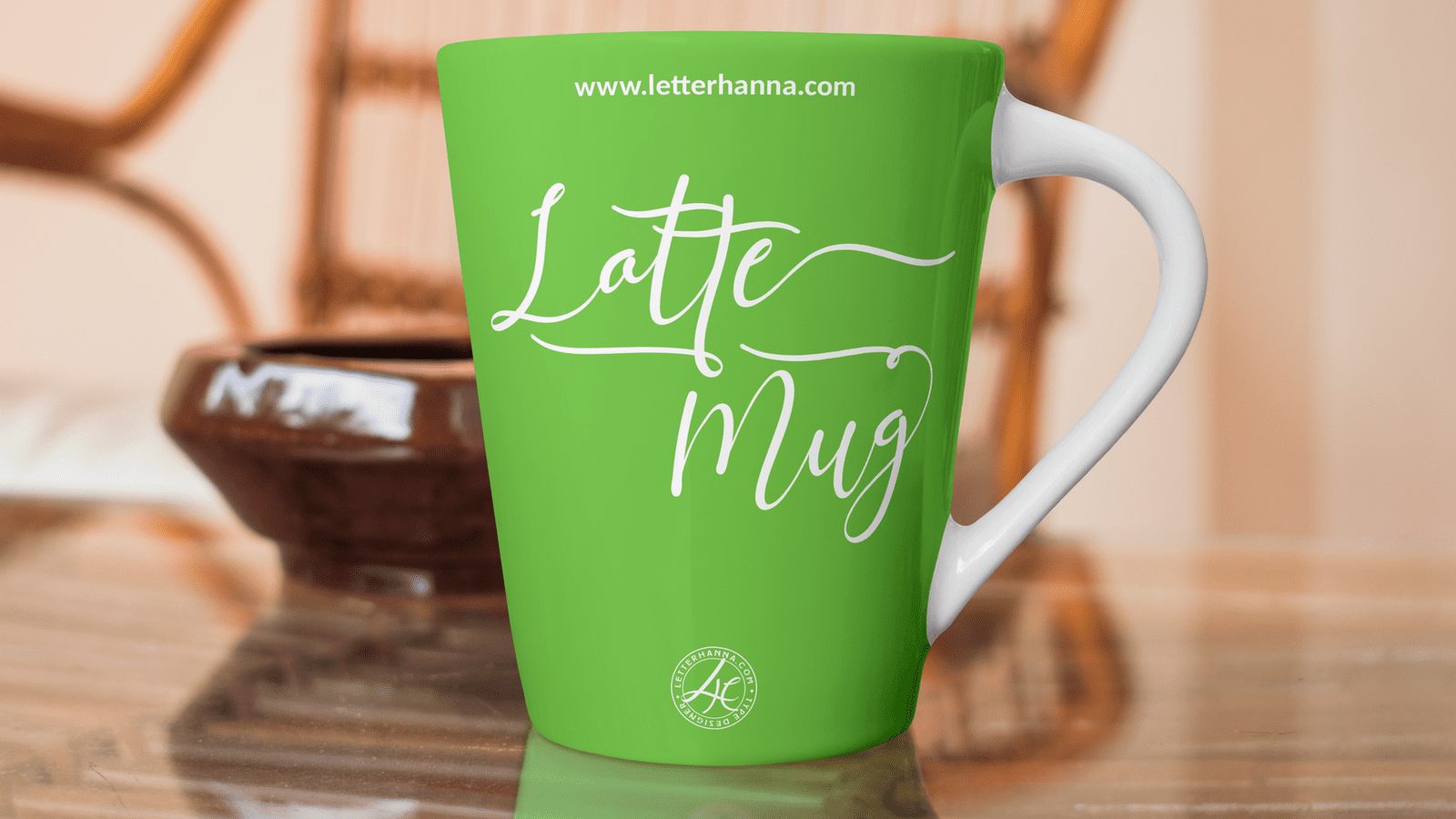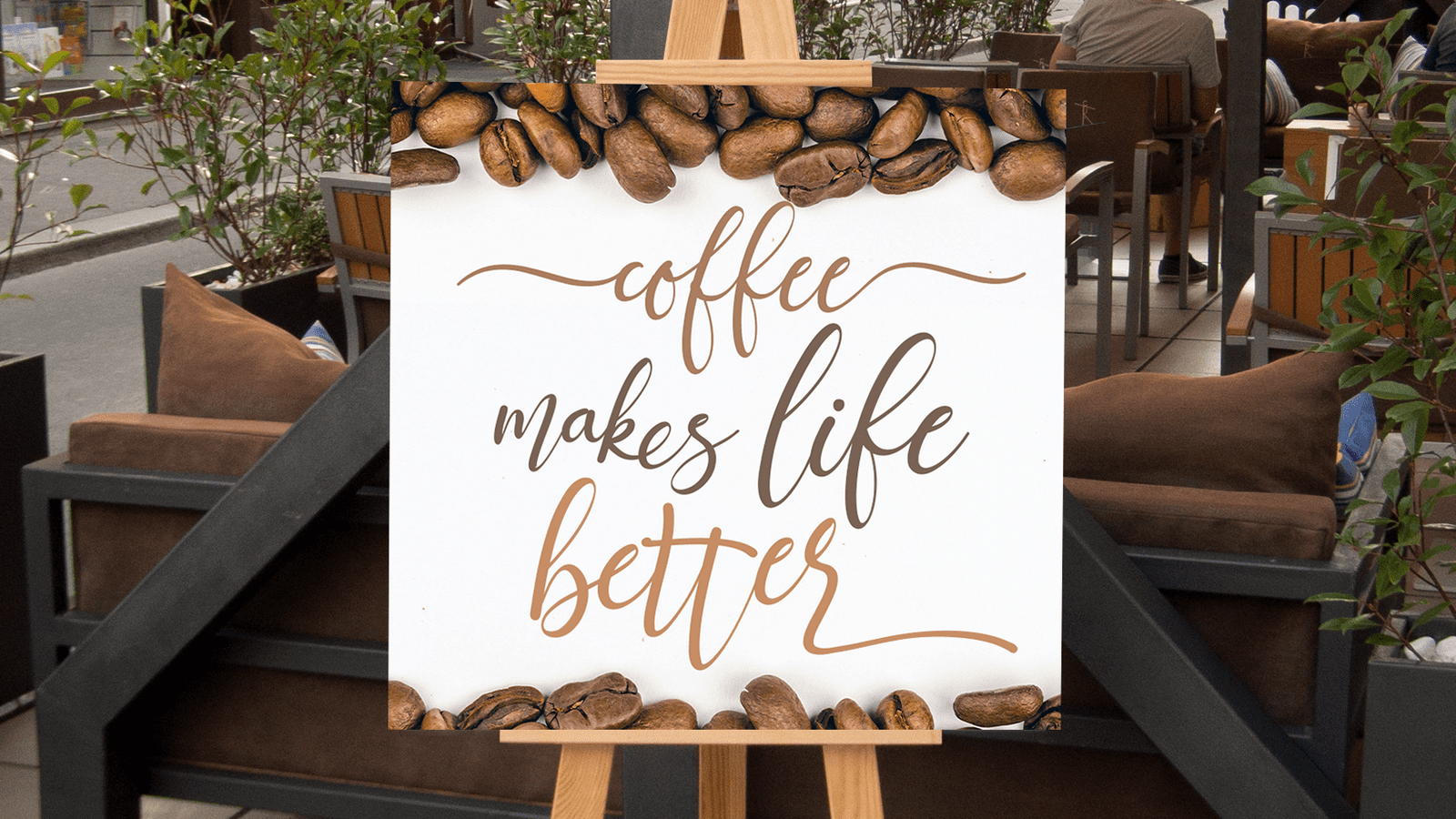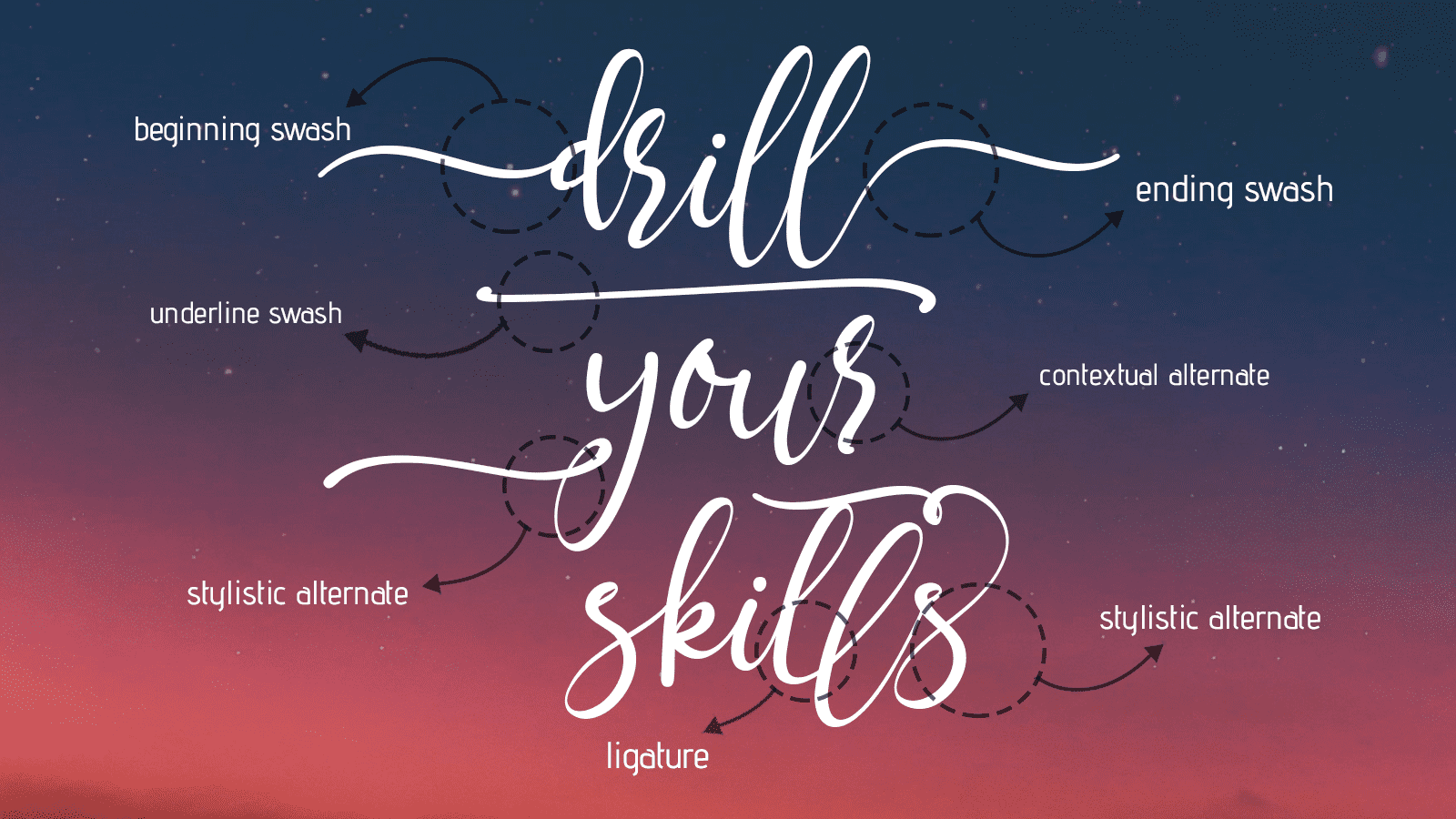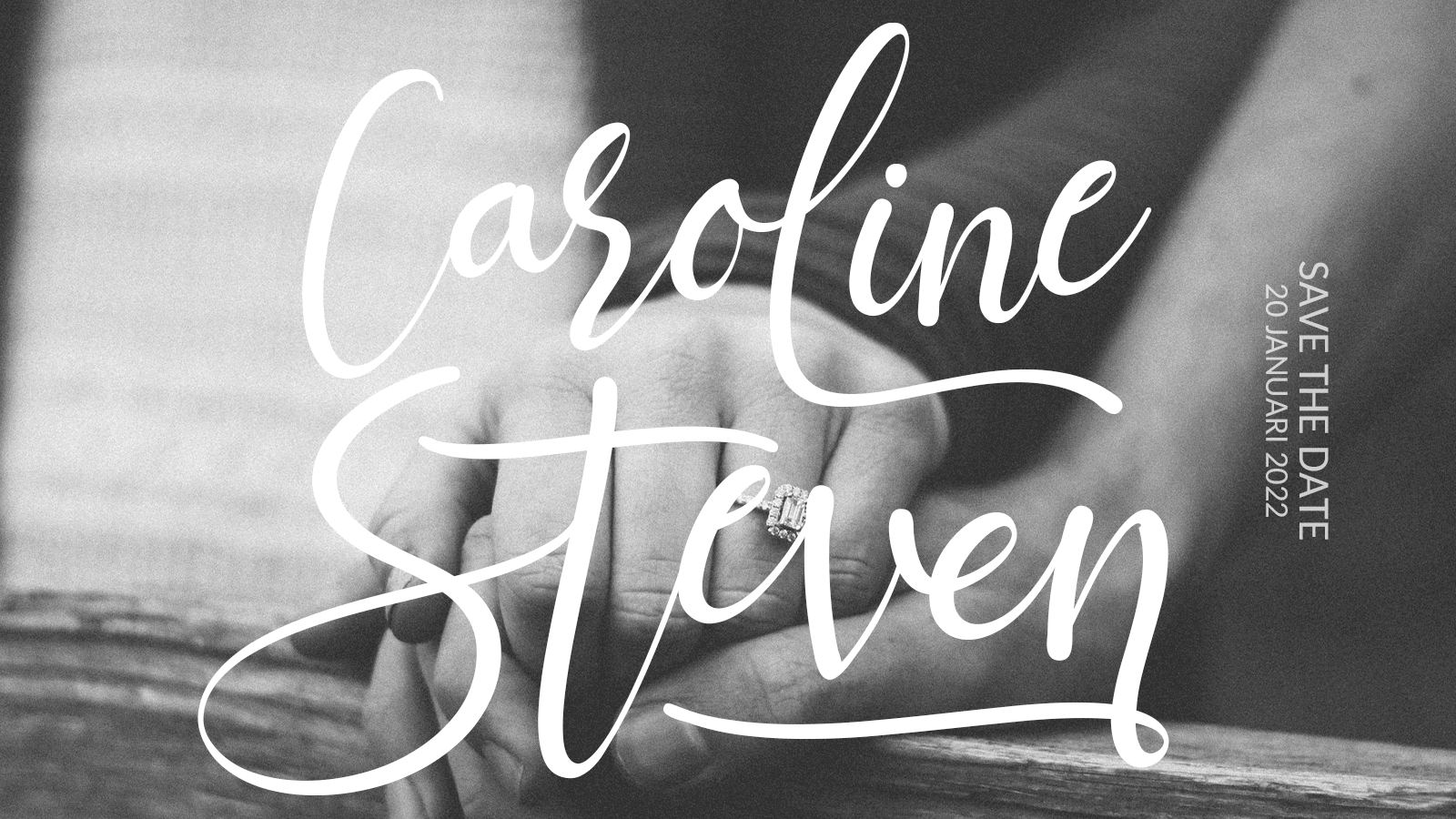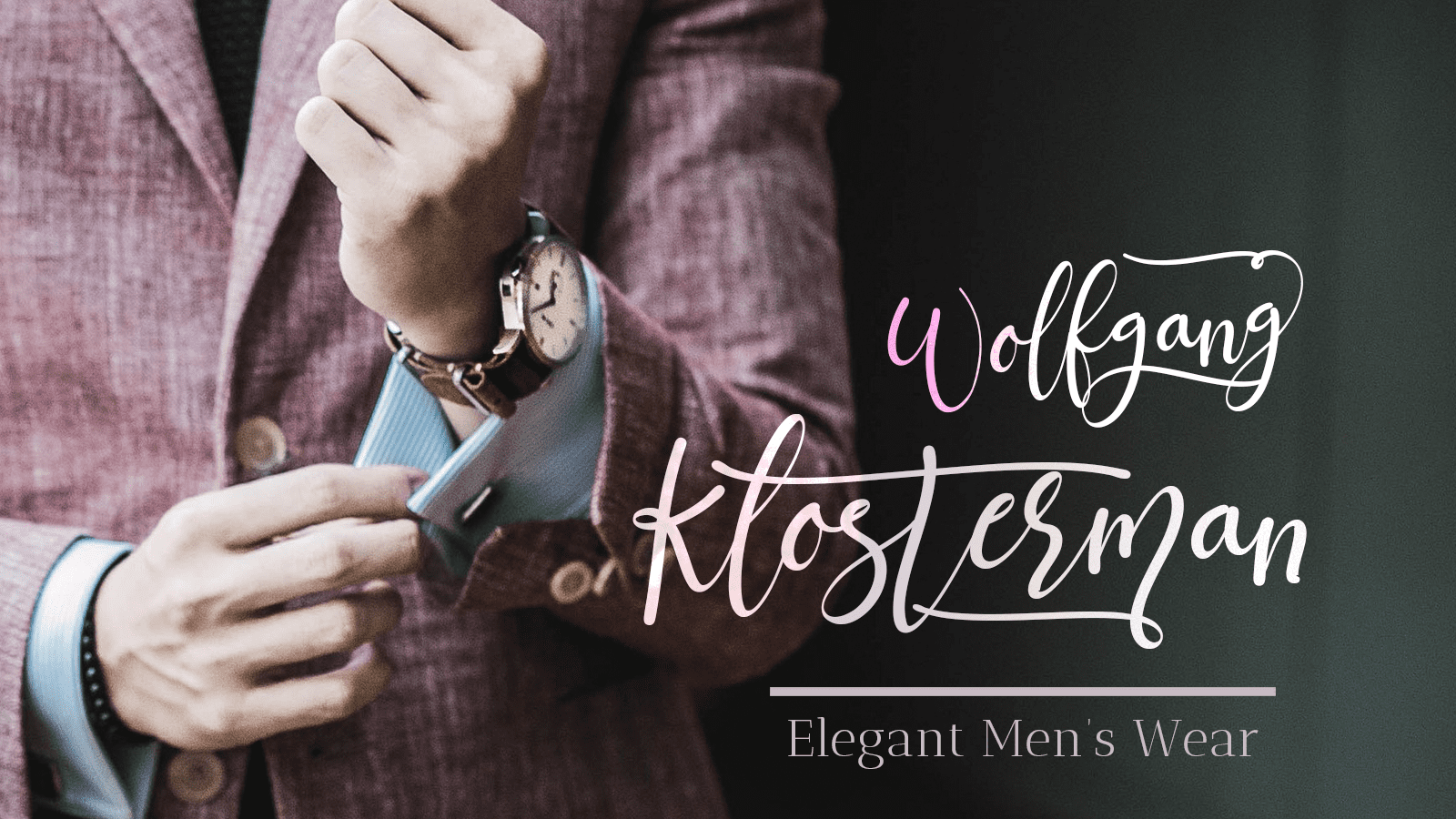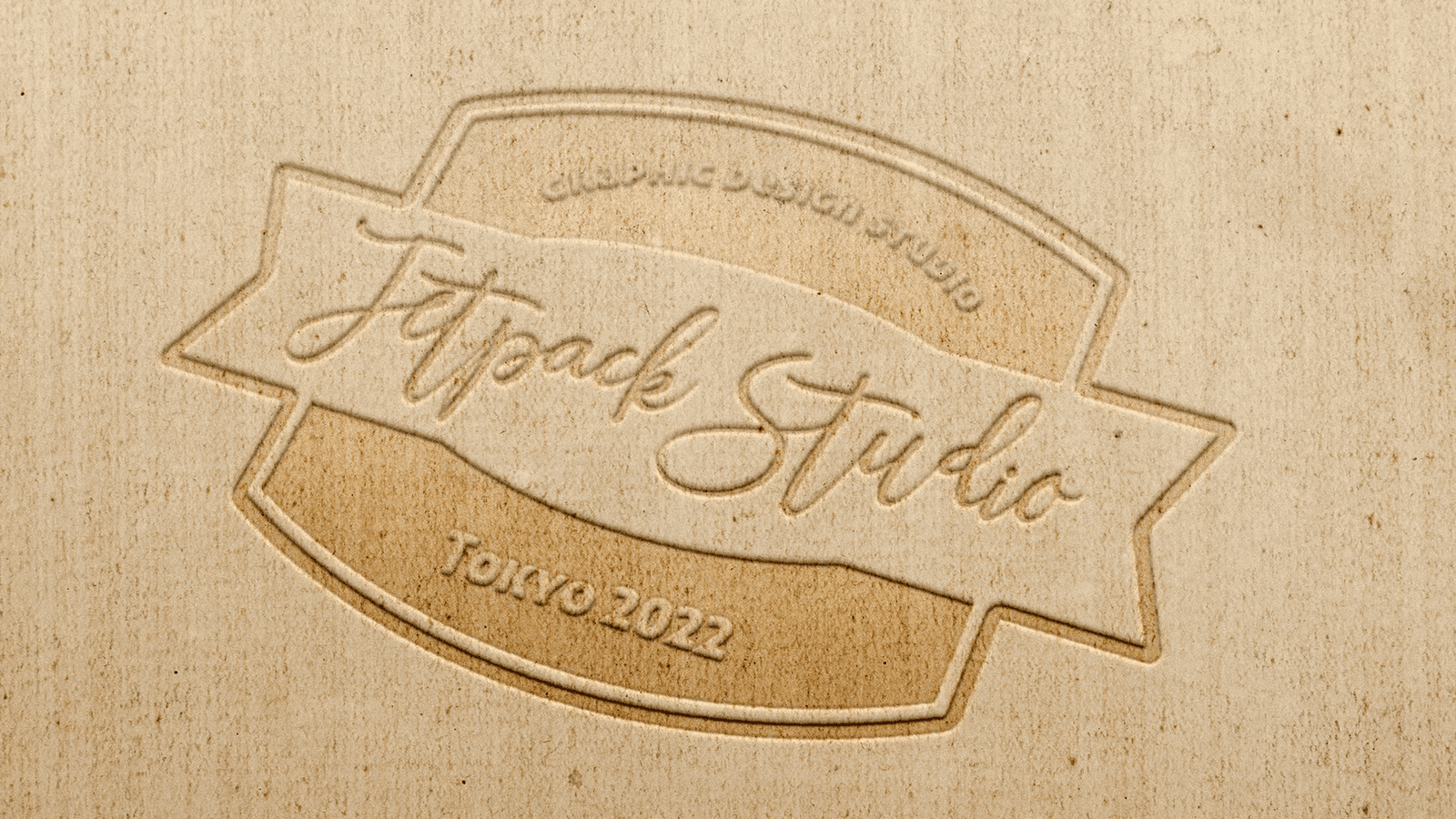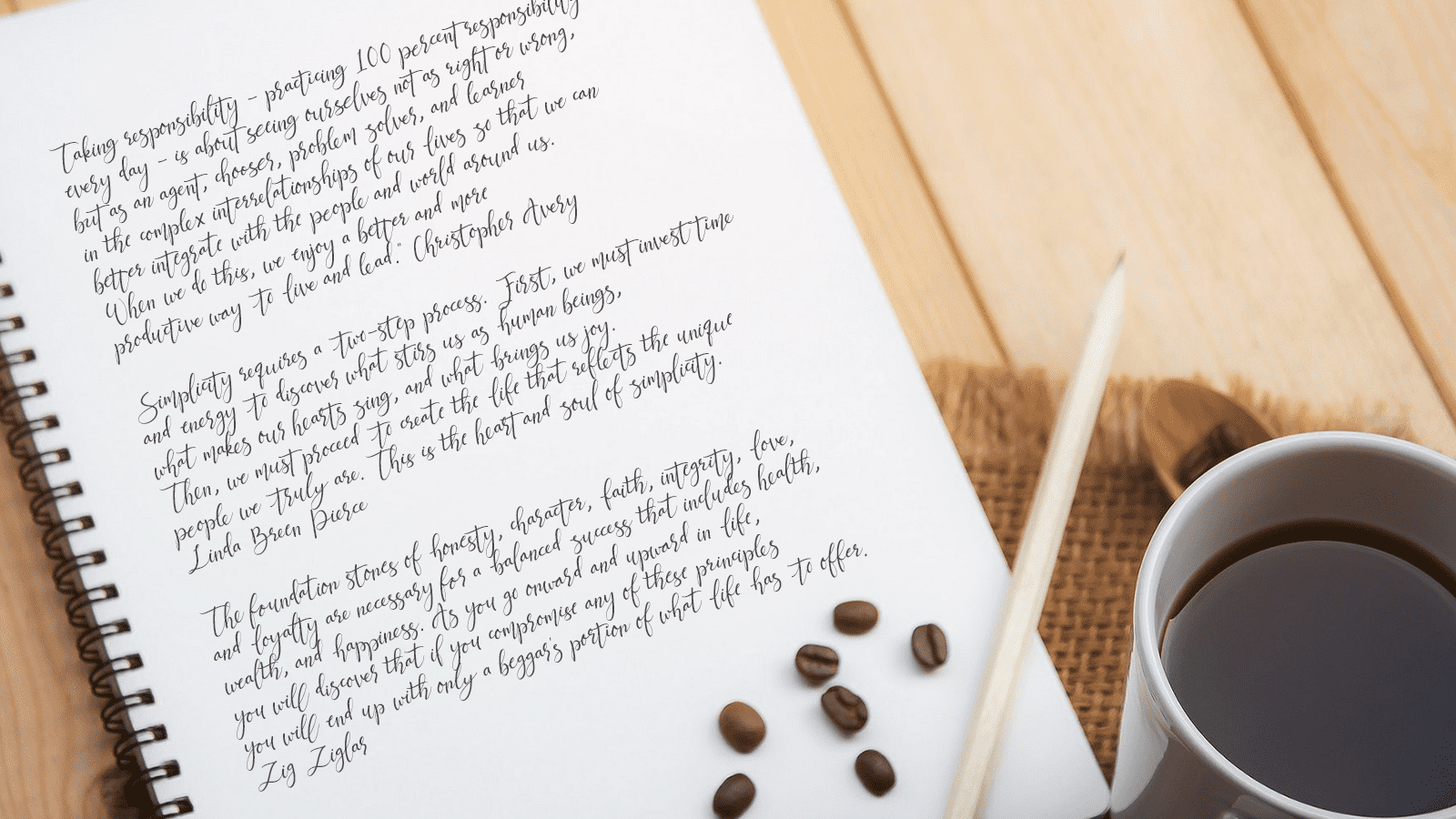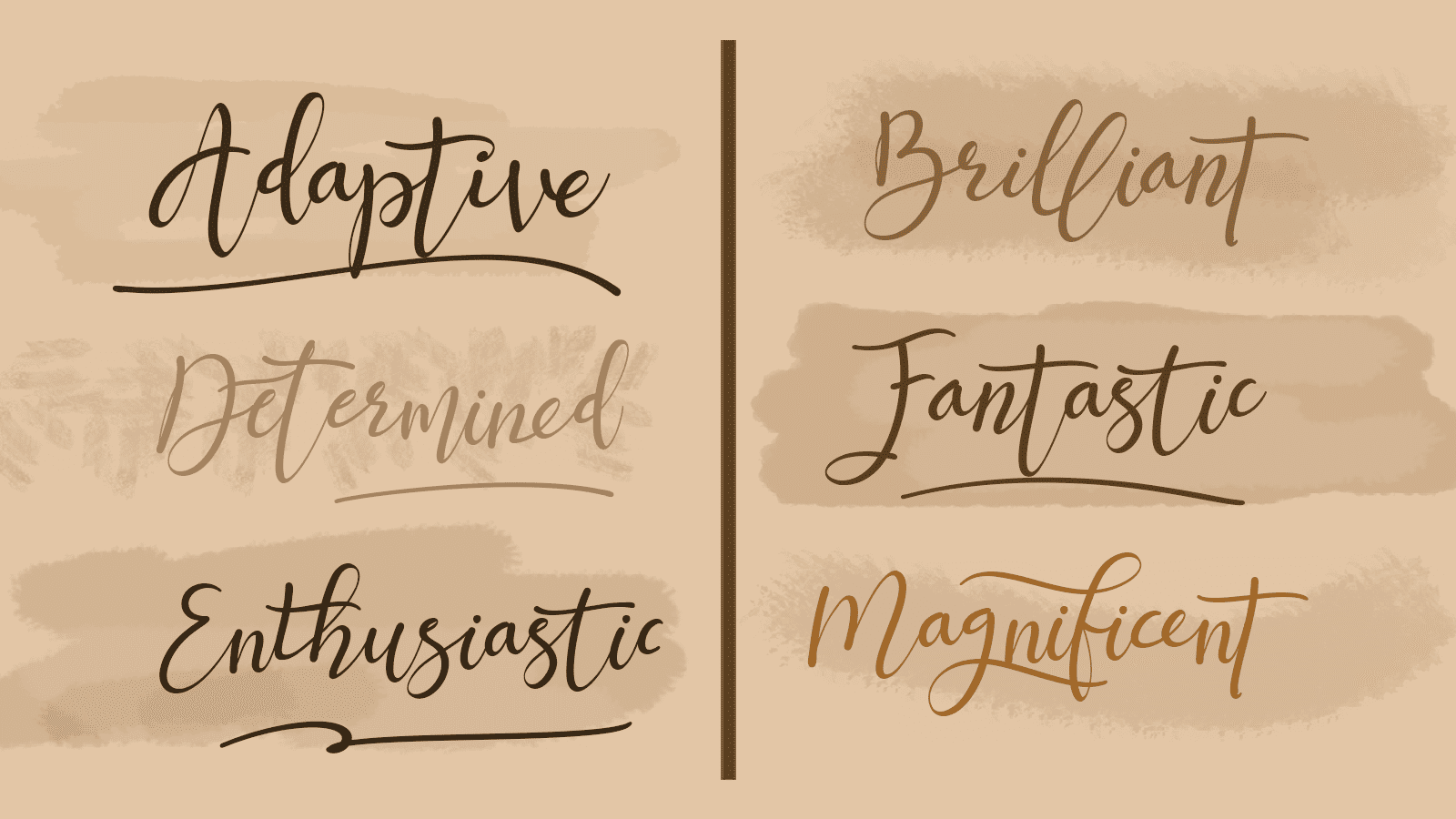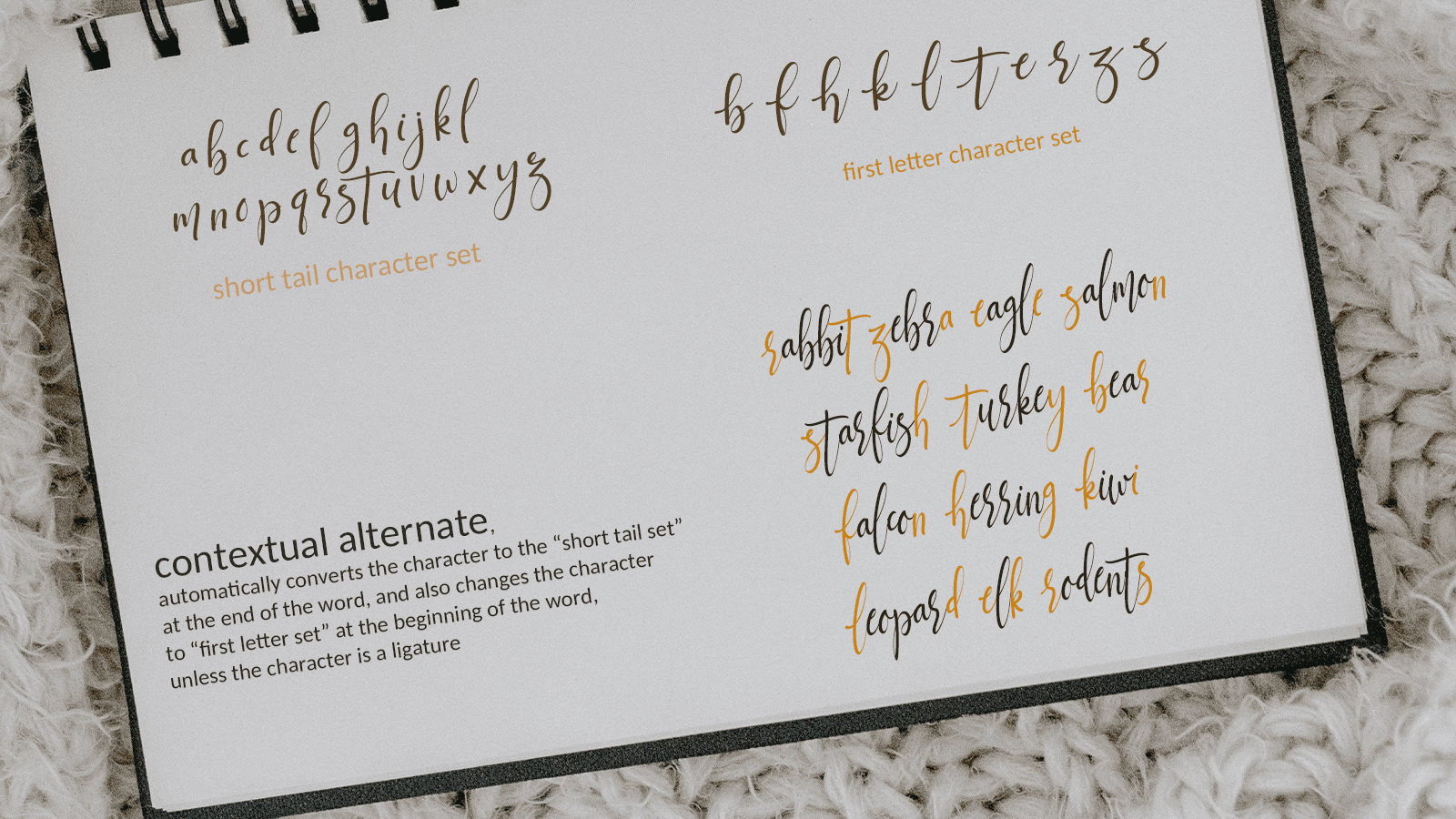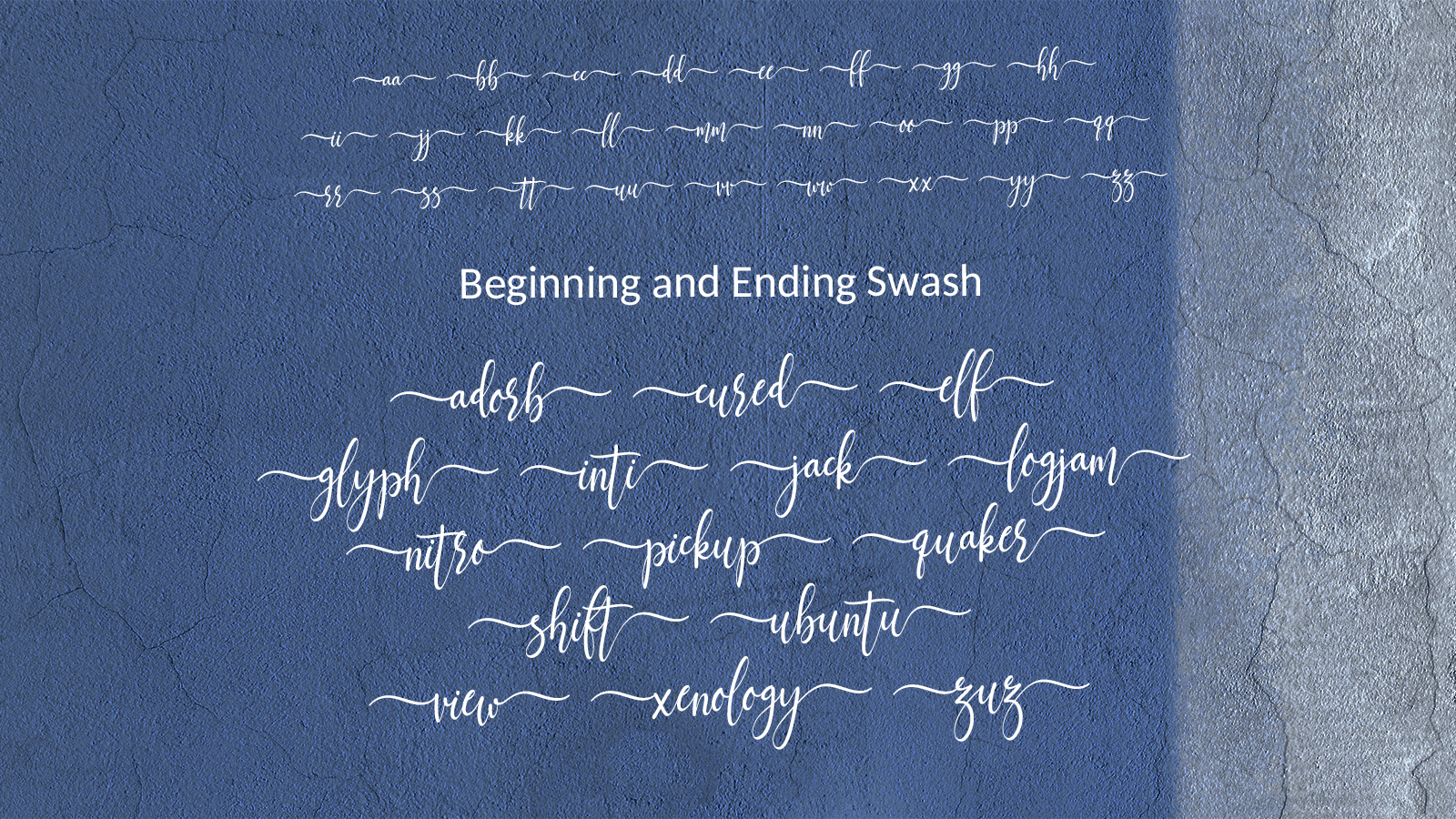
Jettiares is a bouncy handwritten calligraphy font, that comes with beautiful ligatures and lovely alternates. Jettiares has a very beautiful stroke and it will suit various logo design, poster, book cover, wedding invitations, fashion cards, and more. This font is PUA encoded which means you can access all of the glyphs and swashes with ease!
– Uppercase and Lowercase letters
– Numbering and Punctuations
– Multilingual Support
– Ligatures
– Beginning and ending swashes
– Underline swashes
– Stylistic alternate